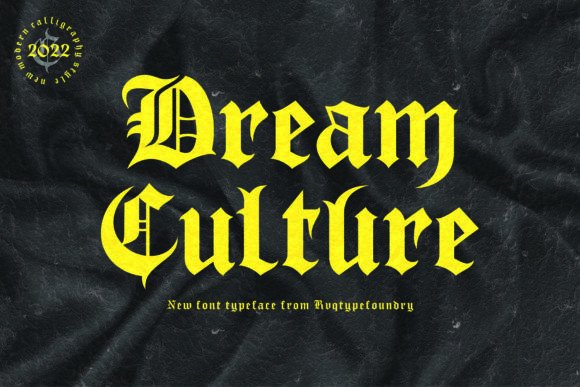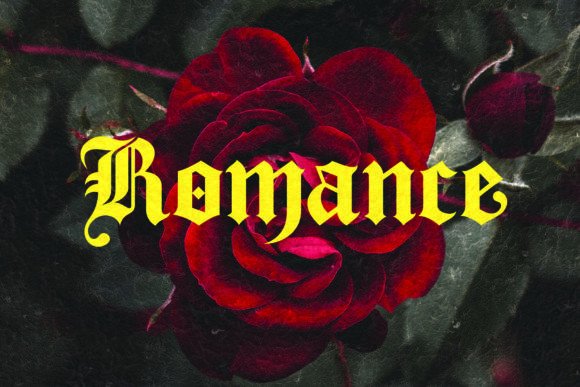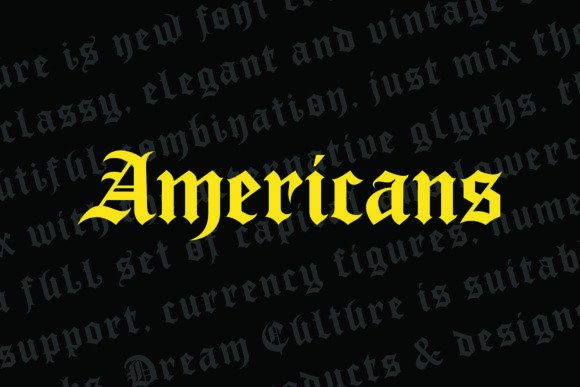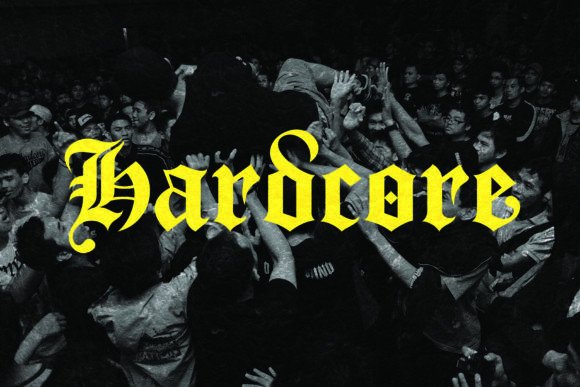
Dream Culture Font: Elegant Blackletter for Vintage Logo Design
About the Dream Culture Font
Let us introduce you to Dream Culture Font, where timeless design meets modern craftsmanship. The Dream Culture is a new blackletter font with classy, elegant, and vintage characters. To create a beautiful combination, just mix the uppercase and lowercase with the alternative glyphs.
Dream Culture excels in display applications such as logos, headlines, and short textual elements on packaging or posters. Its elegant, vintage styling lends itself well to projects evoking a sense of luxury, heritage, or classic sophistication. However, its intricate detail makes it unsuitable for body text or UI elements where readability at smaller sizes is paramount.
The font’s core personality is refined and subtly authoritative. It projects an air of timeless elegance without being overly fussy.
Pairing Dream Culture with a clean sans-serif like Helvetica Neue for body copy or a geometric sans-serif for a modern contrast would create a balanced and visually appealing design. For a more traditional feel, consider pairing it with a classic serif such as Garamond or a slightly more playful script font for a touch of vintage charm.